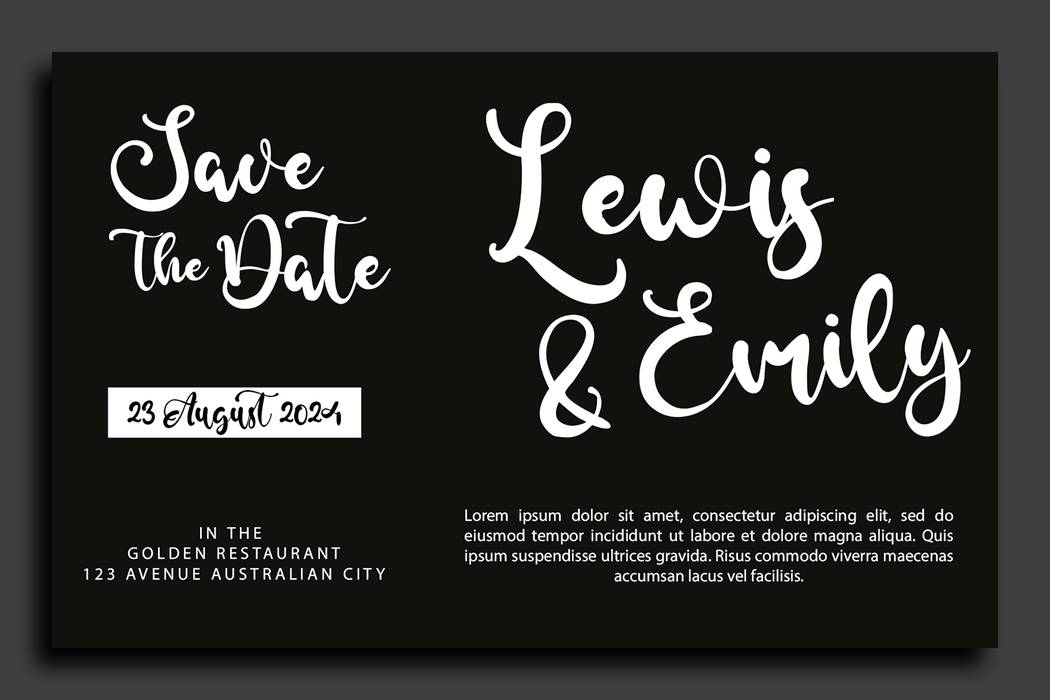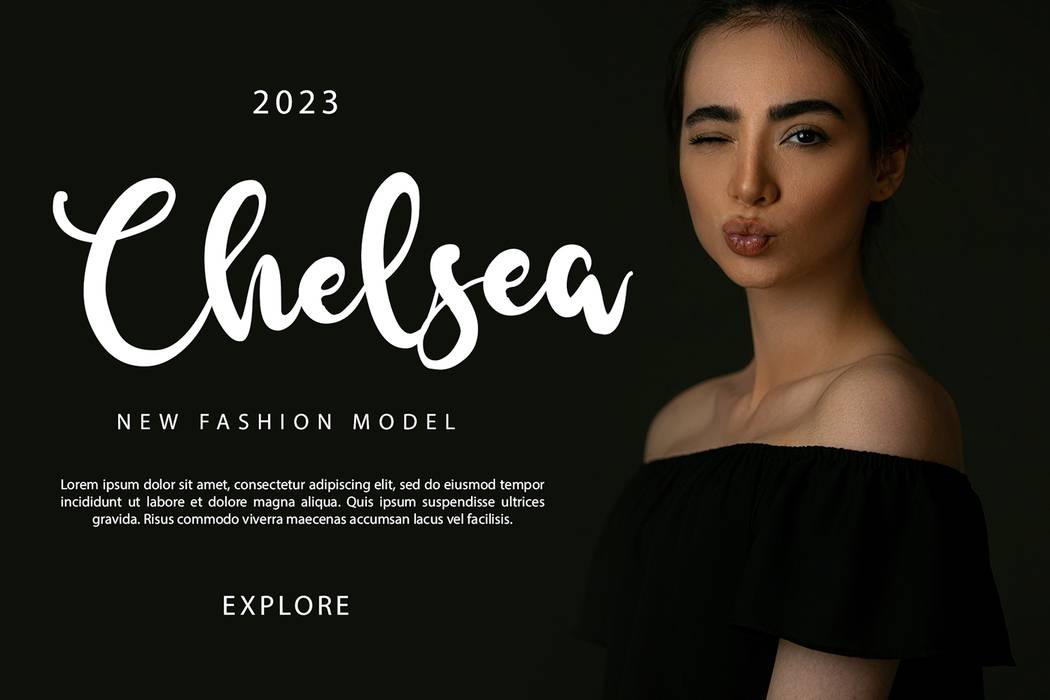
Burcaster is a playful and elegant script font featuring fluid, hand-drawn letterforms with a lively and decorative flair. Its bold weight and charming swashes make it perfect for creative branding, invitations, and headlines where a friendly yet sophisticated look is desired. This font works well in designs that need a personal, artistic touch with a stylish, modern vibe.
Burcaster Font
About Burcaster Font